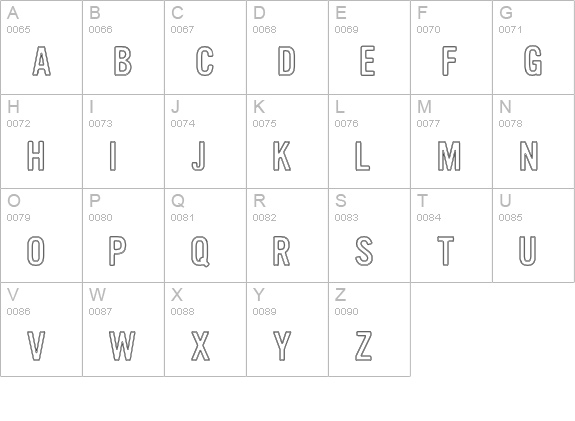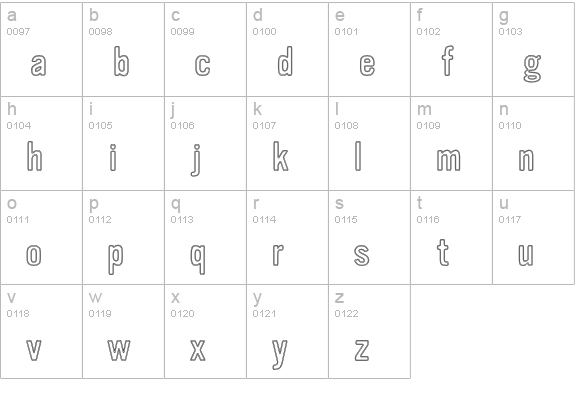
VinylDoubleOutline Font Details
VinylDoubleOutline font is a stunning display typeface that exudes elegance and sophistication. With its unique double outline design, this font will make your designs stand out from the crowd. Whether you're creating logos, headlines, or any other form of typographic artwork, VinylDoubleOutline font will add a touch of modernity and flair. What sets VinylDoubleOutline font apart is not just its striking appearance, but also its versatility. This font is perfect for both digital and print applications, as it maintains its clarity and legibility even at smaller sizes. Its clean lines and balanced letterforms make it suitable for a wide range of design projects, from branding and packaging to editorial and web design. But what's even better is that VinylDoubleOutline font is available for free! That's right, you can download this incredible font at FontsMarket.com without spending a dime. This makes it the ideal choice for designers on a budget or anyone who appreciates high-quality fonts without breaking the bank. So why wait? Enhance your designs with the stylish and contemporary VinylDoubleOutline font today. Download it for free at FontsMarket.com and let your creativity flow.